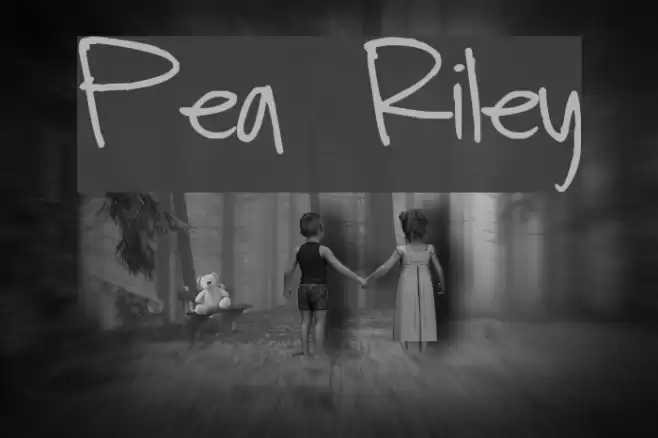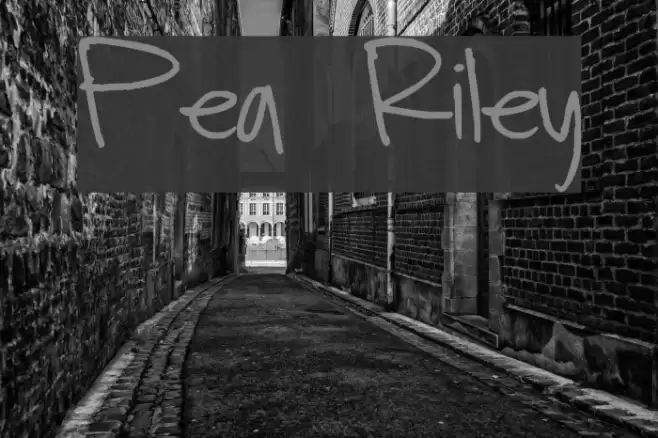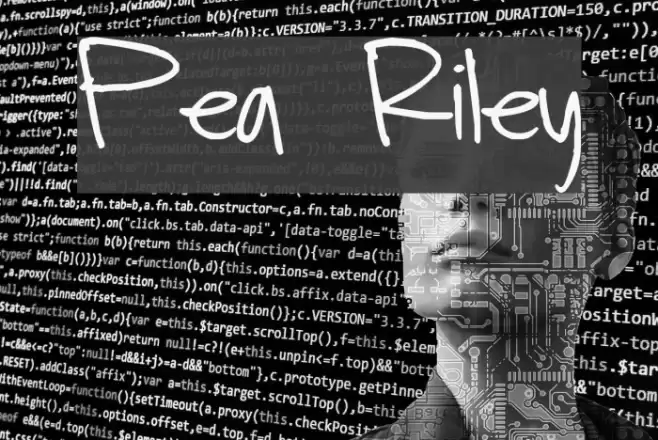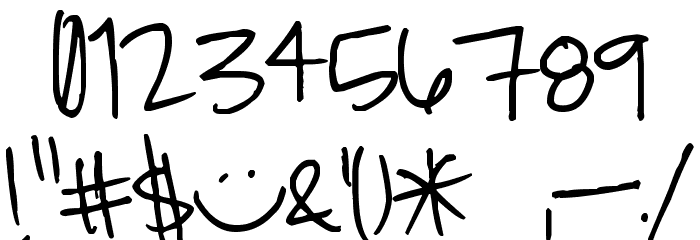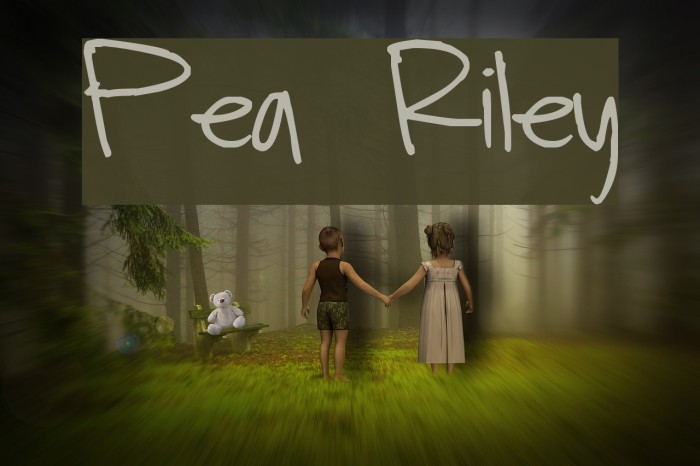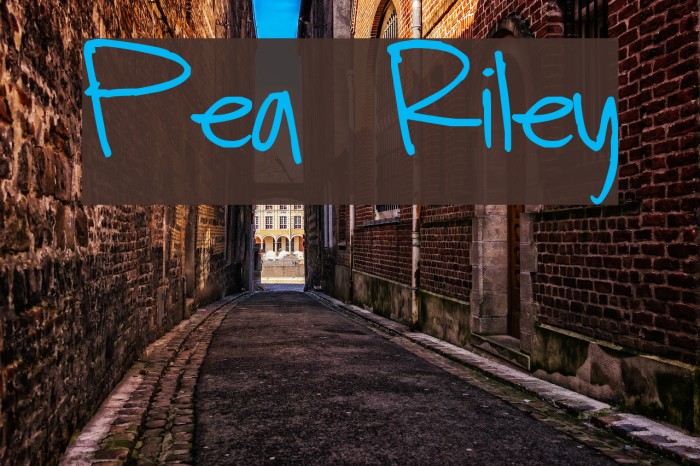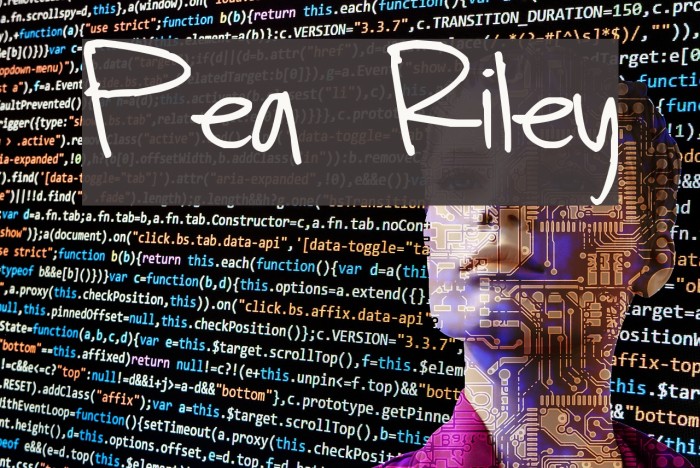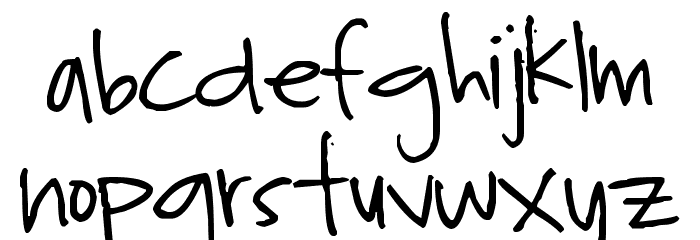
Pea Riley Font
Pea Riley Description
This font exudes a casual and playful handwritten style, characterized by its irregular strokes and informal appearance. The letters are slightly slanted, giving it a dynamic and lively feel. The uppercase and lowercase letters are well-balanced, maintaining a consistent flow throughout. The numerals and special characters complement the alphabet with the same whimsical touch, making it suitable for projects that require a personal and approachable tone. The overall look is friendly and inviting, perfect for creative and informal applications.
A playful, handwritten font with a casual and lively style from Uncategorized fonts.
- Proposed Projects: Ideal for greeting cards, personal blogs, children's books, and creative branding.
- Overall Style: Casual
- Use Case: Headlines, Informal text, Creative projects